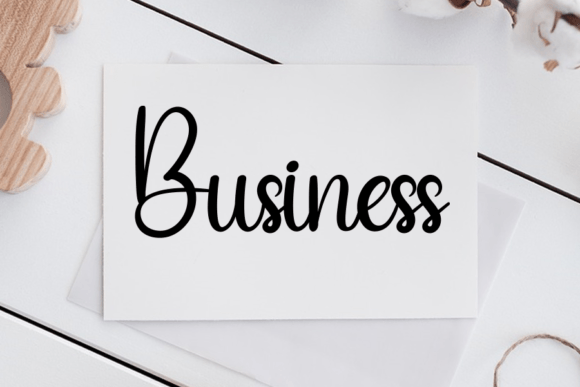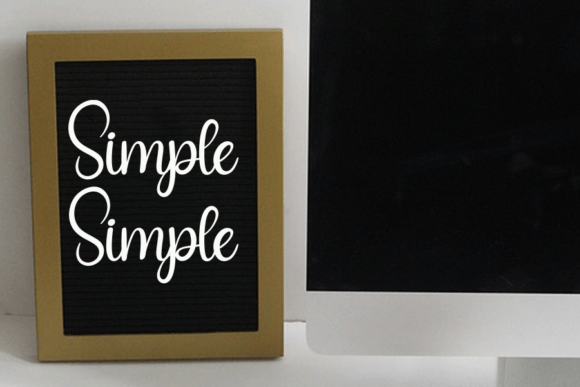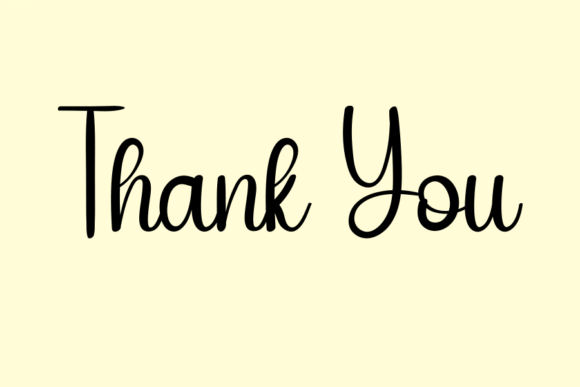
White Font
About White Font
“White” is a distinctive and round-lettered handwritten font that has been meticulously crafted to achieve a specific aesthetic. This font is versatile and can be effectively used for writing titles, invitations, letters, and various other types of design projects.
The uniqueness of White lies in its round letterforms, offering a charming and friendly appearance to your text. Whether you’re working on digital graphics, print materials, or any other creative project, White is designed to bring a distinct and appealing quality to your typography.
Imagine using White to write captivating titles that stand out with their round and stylish lettering. Picture it on invitations, creating a warm and inviting atmosphere for special events. Whether applied to letters or other products, White is crafted to be a versatile font that adds a touch of character to your designs.
In summary, White is more than just a font; it’s a creative tool carefully crafted to produce a unique and round-lettered style. Try it for various design purposes and experience how it enhances the visual appeal of your projects with its distinctive and carefully designed letterforms.